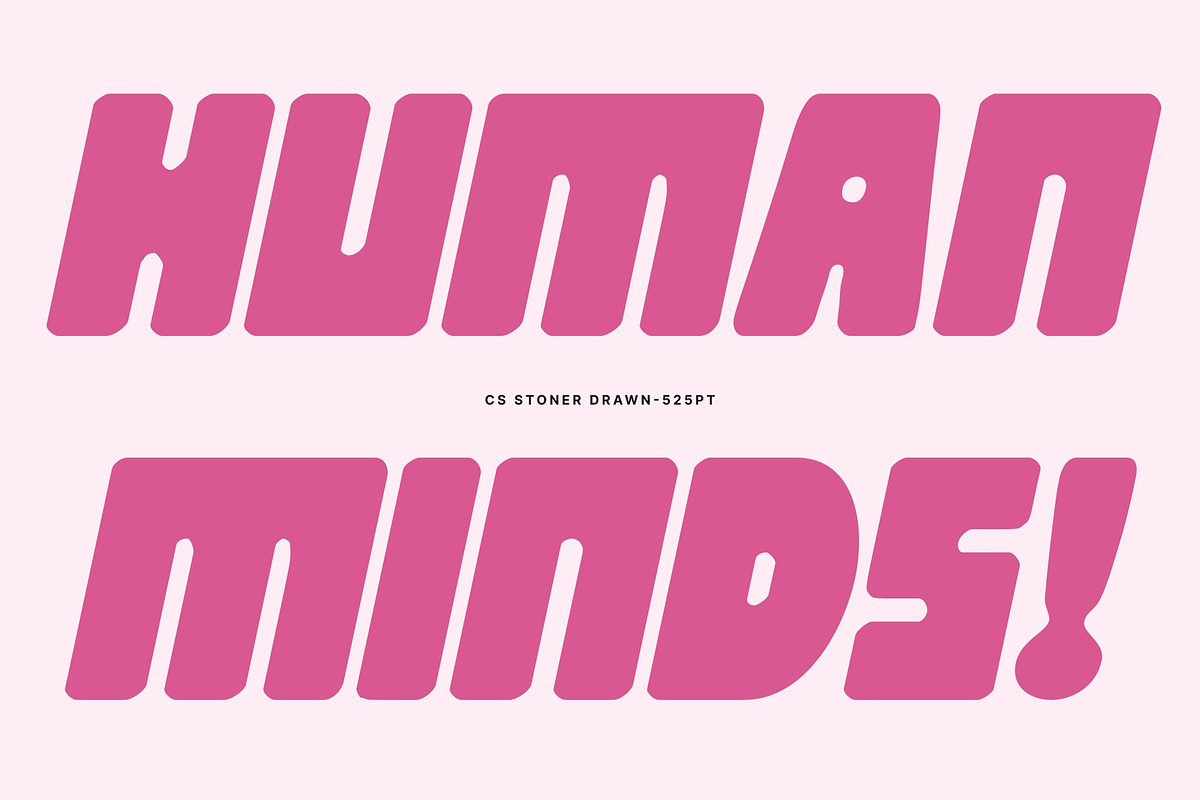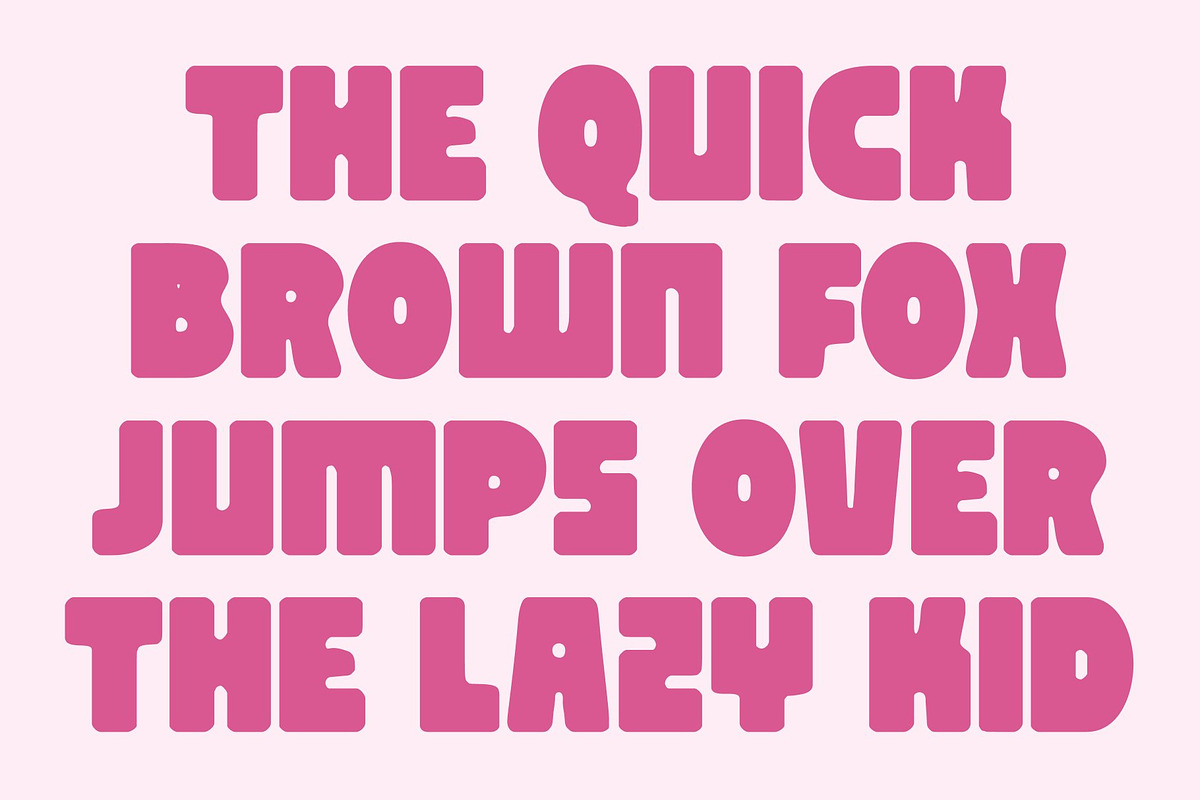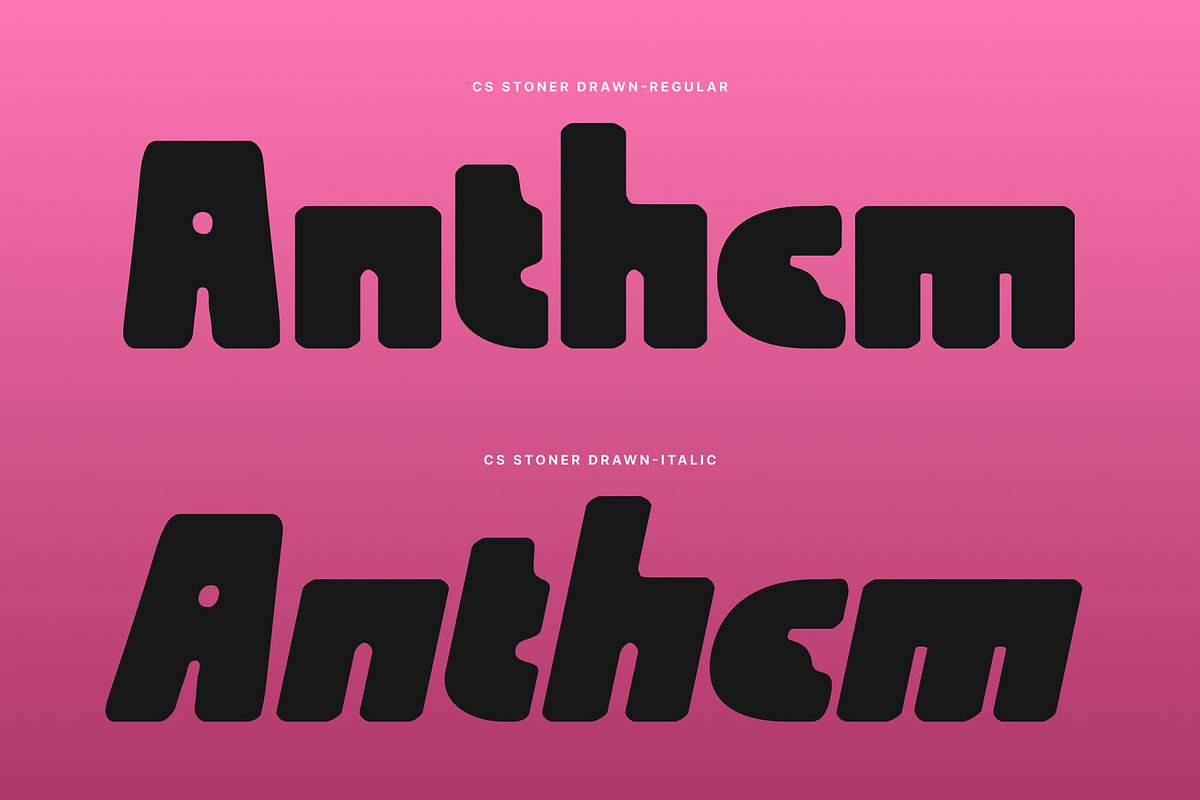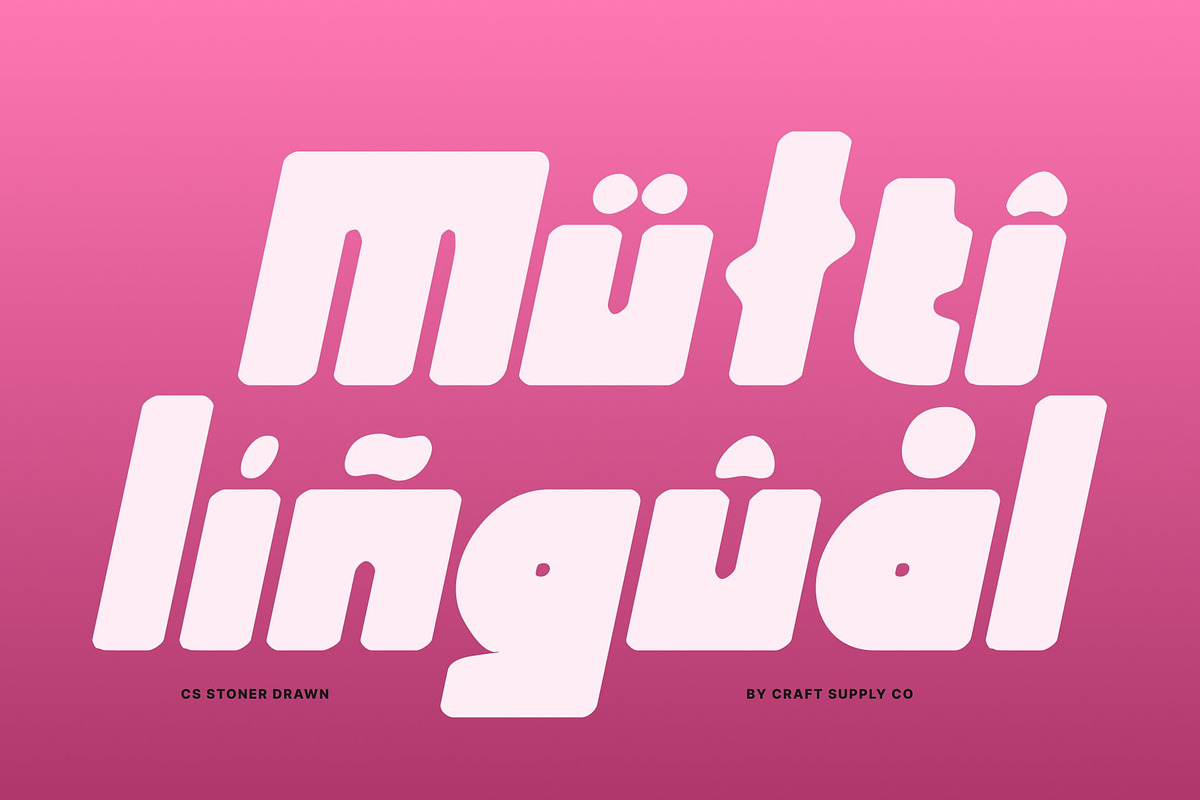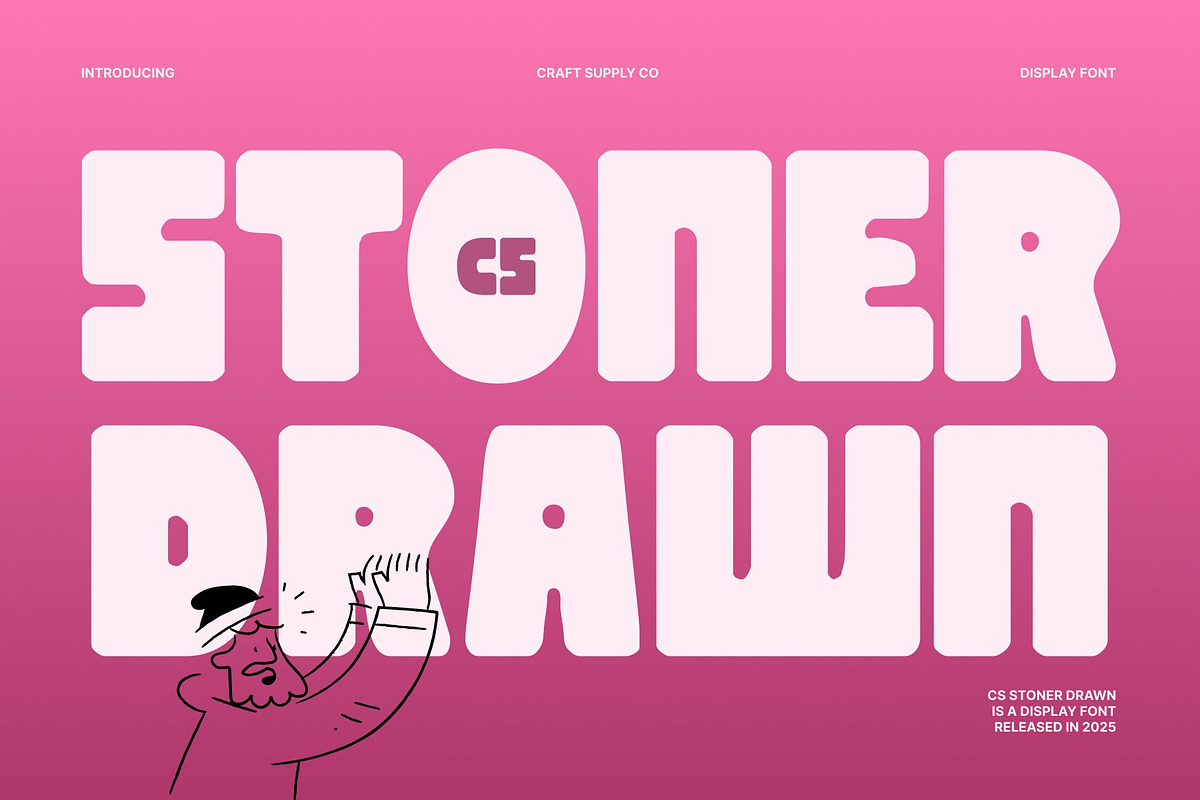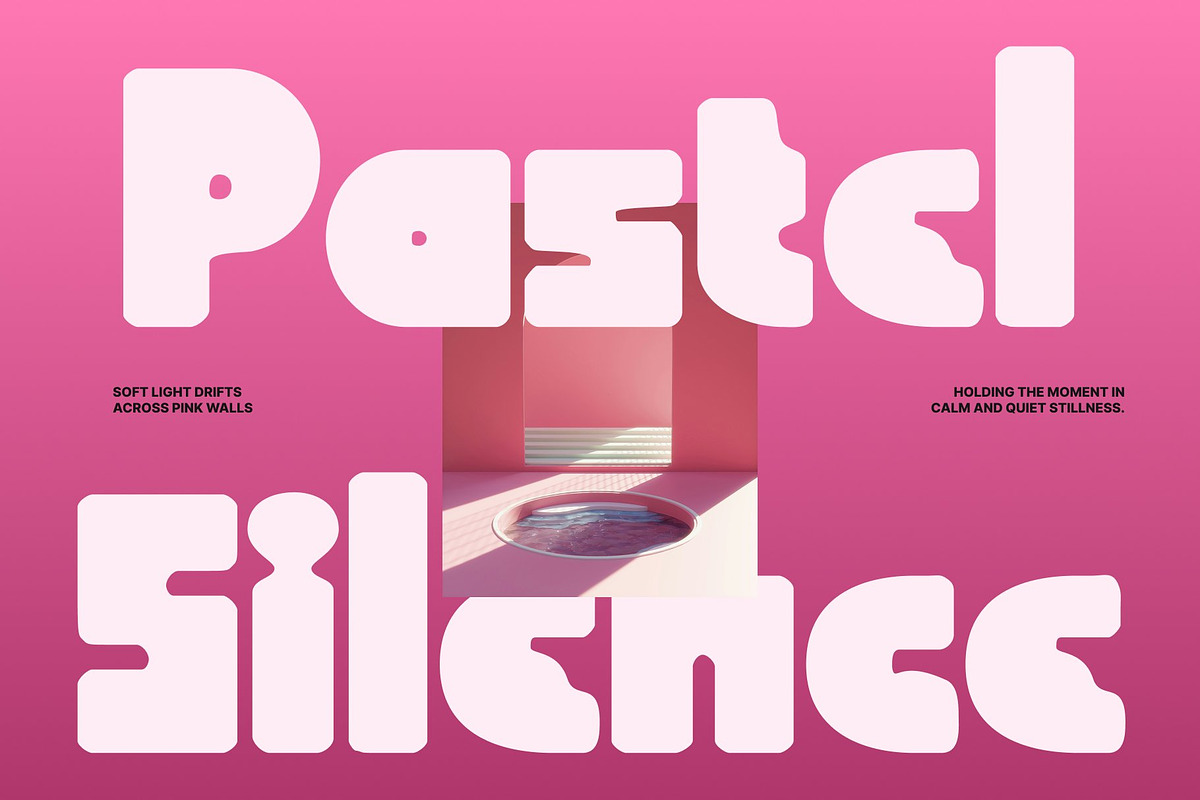
CS Stoner Drawn
CS Stoner Drawn – Industrial Power with Geometric Precision
Bold Sans Serif with Industrial Geometry This is a bold sans serif display font shaped by strong geometric influence and industrial aesthetics. Its blocky construction and solid structure create a powerful visual foundation, delivering a typeface that feels tough, modern, and confidently built for high-impact design.
Drawn Effect for Raw and Unique Character The drawn texture adds subtle imperfections to the rigid geometry, giving this font a more organic and distinctive personality. This handcrafted effect softens the strict industrial forms just enough to create visual interest, making each character feel unique while preserving its bold strength.
Strong Presence with a Modern Edge Designed to command attention, the font’s sharp angles and sturdy proportions ensure maximum impact in headlines and display use. At the same time, its clean finish and controlled geometry keep it versatile, allowing it to move effortlessly between edgy creative projects and professional visual systems.
Perfect for Impactful Branding and Displays This font excels in posters, branding, merchandise, editorial layouts, and promotional graphics that demand authority and memorability. With its blend of industrial power, geometric precision, and drawn authenticity, this font delivers bold communication with a raw yet refined attitude.